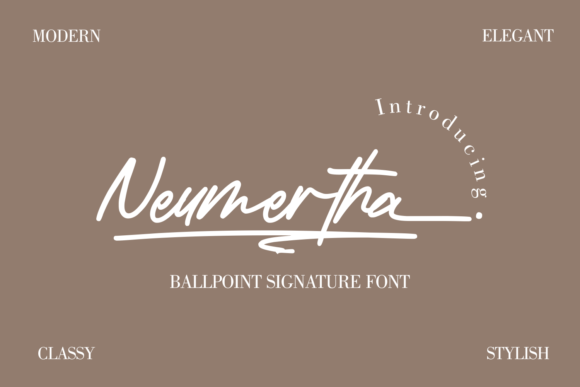
Get Lost in the Elegance of Neumertha: The Font that Whispers Authenticity
In a digital world where authenticity is a rare gem, Neumertha emerges as a striking ballpoint script, meticulously crafted to mimic the beauty and soul of genuine handwritten notes. It's a script that speaks to your heart, evoking the nostalgia of pen and paper correspondence, where every stroke held a unique charm. Whether you're a creative professional, a passionate journaler, or simply someone who appreciates the art of handwritten expression, Neumertha is your perfect companion.
Step into a world of enchanting notes, where Neumertha's graceful curves and delicate strokes dance across the page, leaving a trail of elegance and authenticity. Picture your favorite quotes, immortalized in Neumertha's timeless beauty, adorning your walls or greeting you from your bedside table. Its natural flow and effortless style will draw you in, making every word resonate with a deeper meaning.
Imagine designing wedding invitations that exude heartfelt elegance, where each name and detail is rendered in Neumertha's captivating script. Your guests will be captivated by the personal touch, feeling as though they've received a handwritten invitation from the heart. Or envision creating stunning labels for your handmade products, transforming them into miniature works of art that reflect your brand's unique personality.
Neumertha is not just a font; it's an experience. It's the feeling of holding a handwritten letter from a loved one, the warmth of a heartfelt note, the charm of a bygone era. It's the perfect choice for those who seek authenticity, creativity, and a touch of nostalgia in their digital creations.